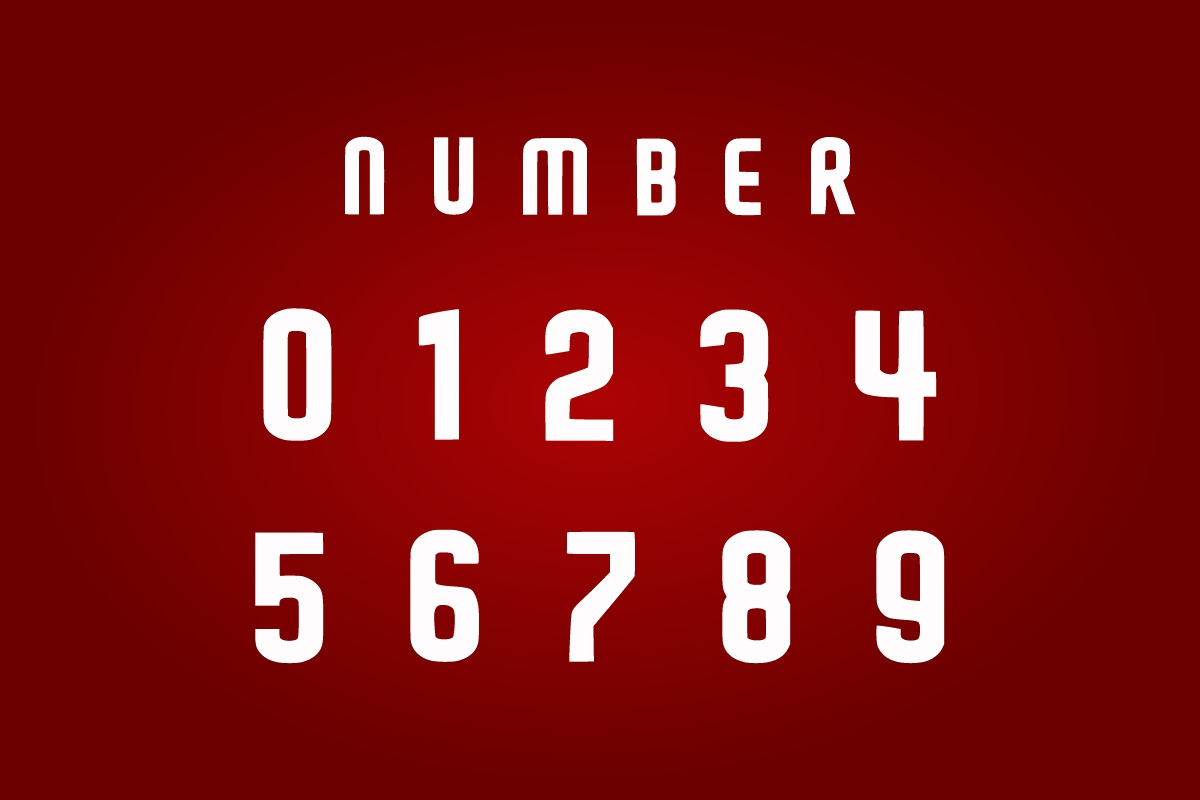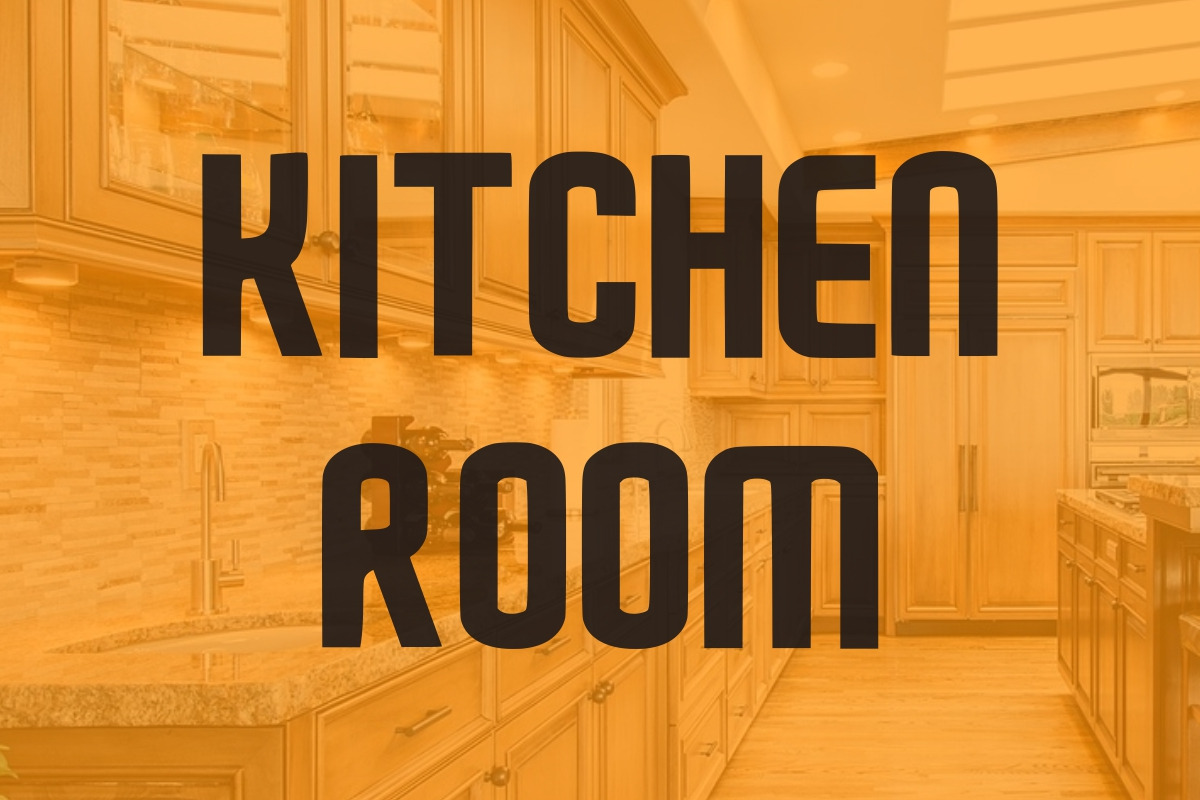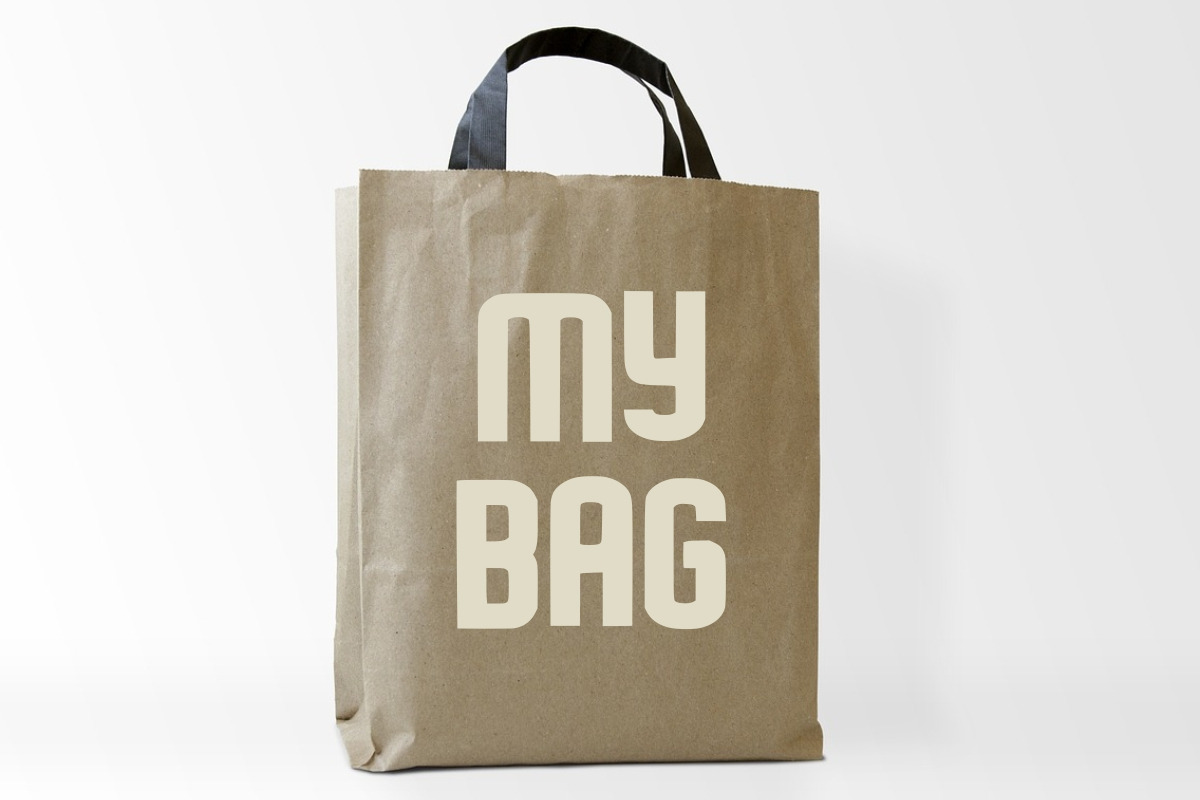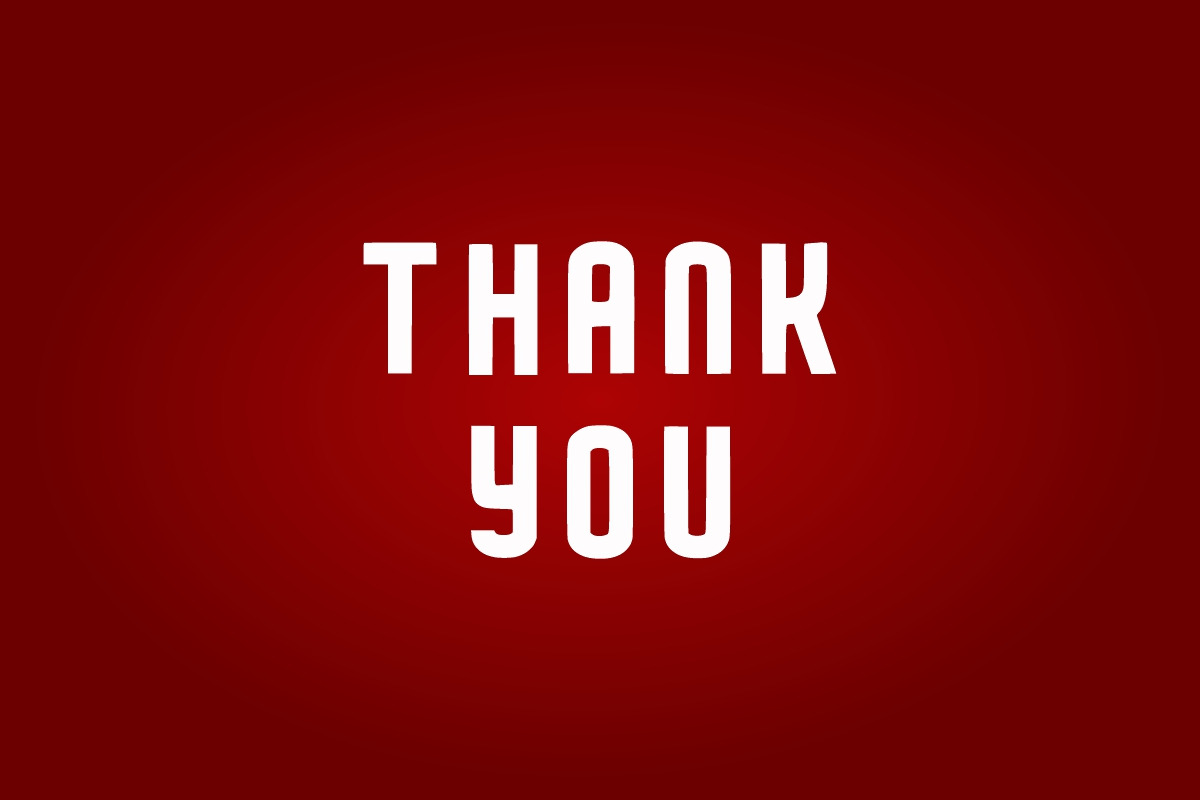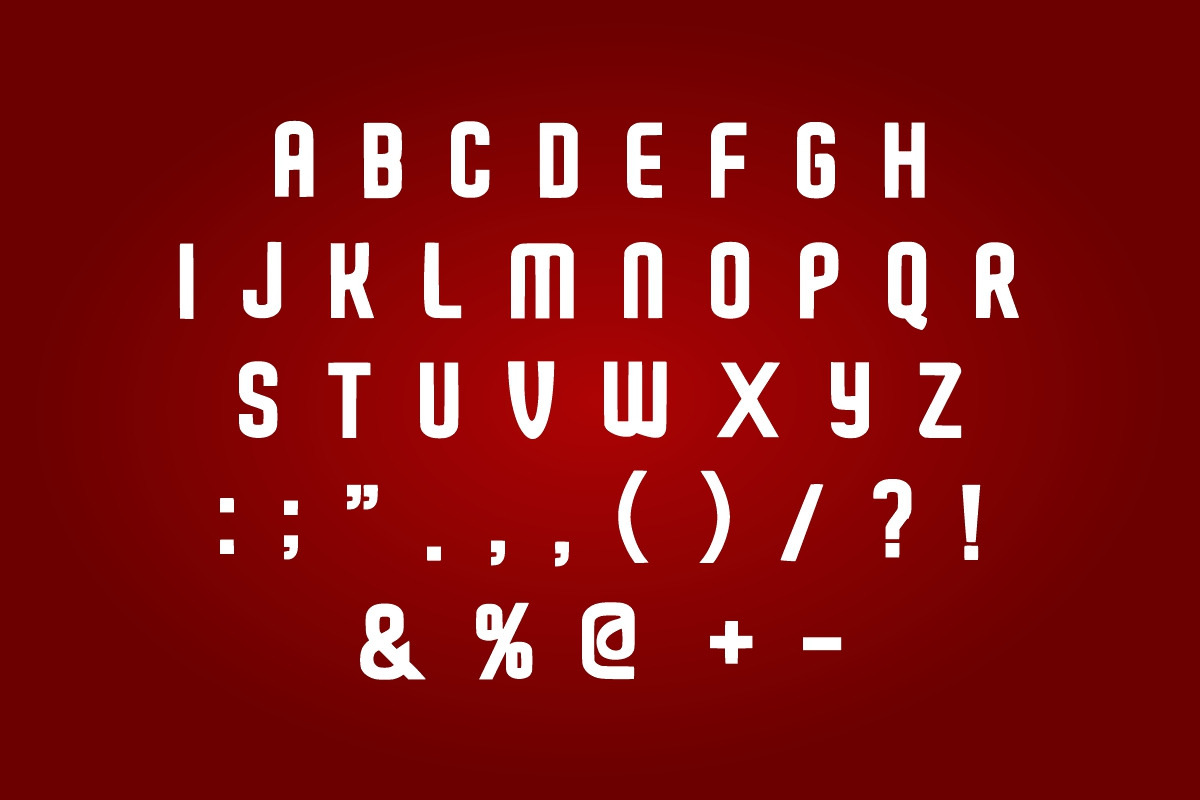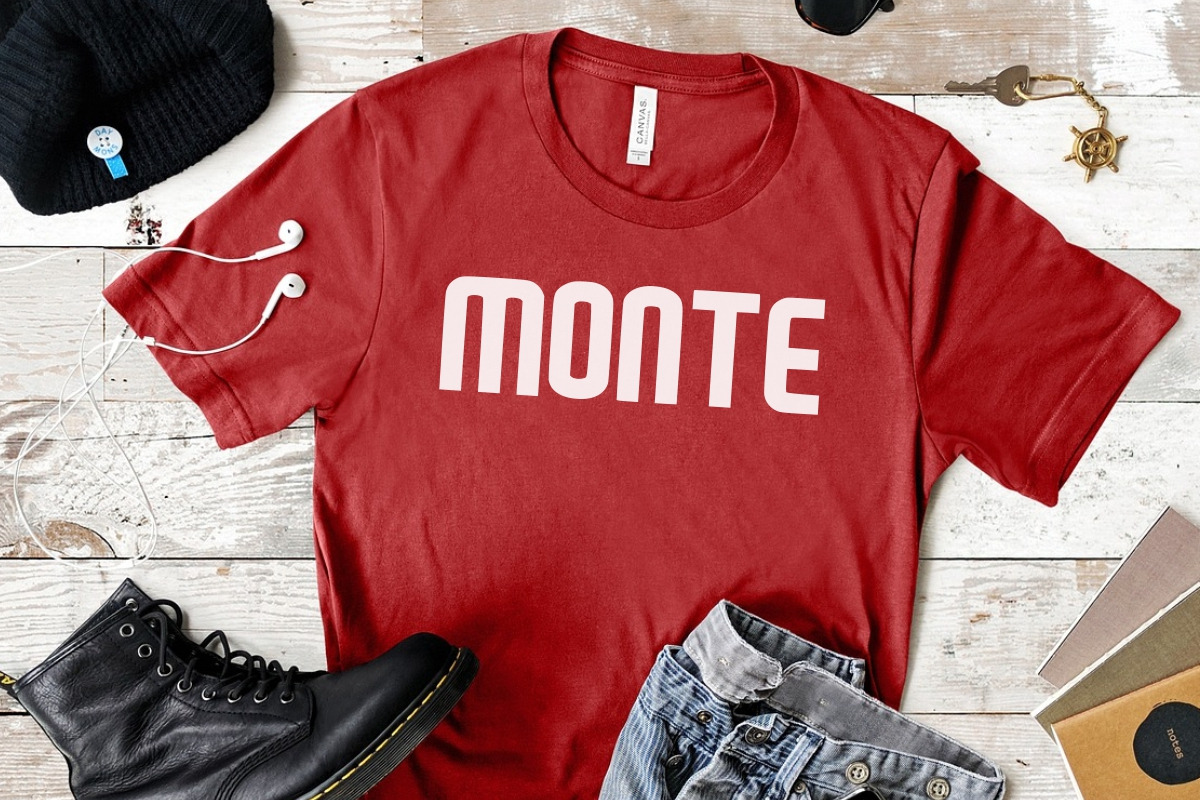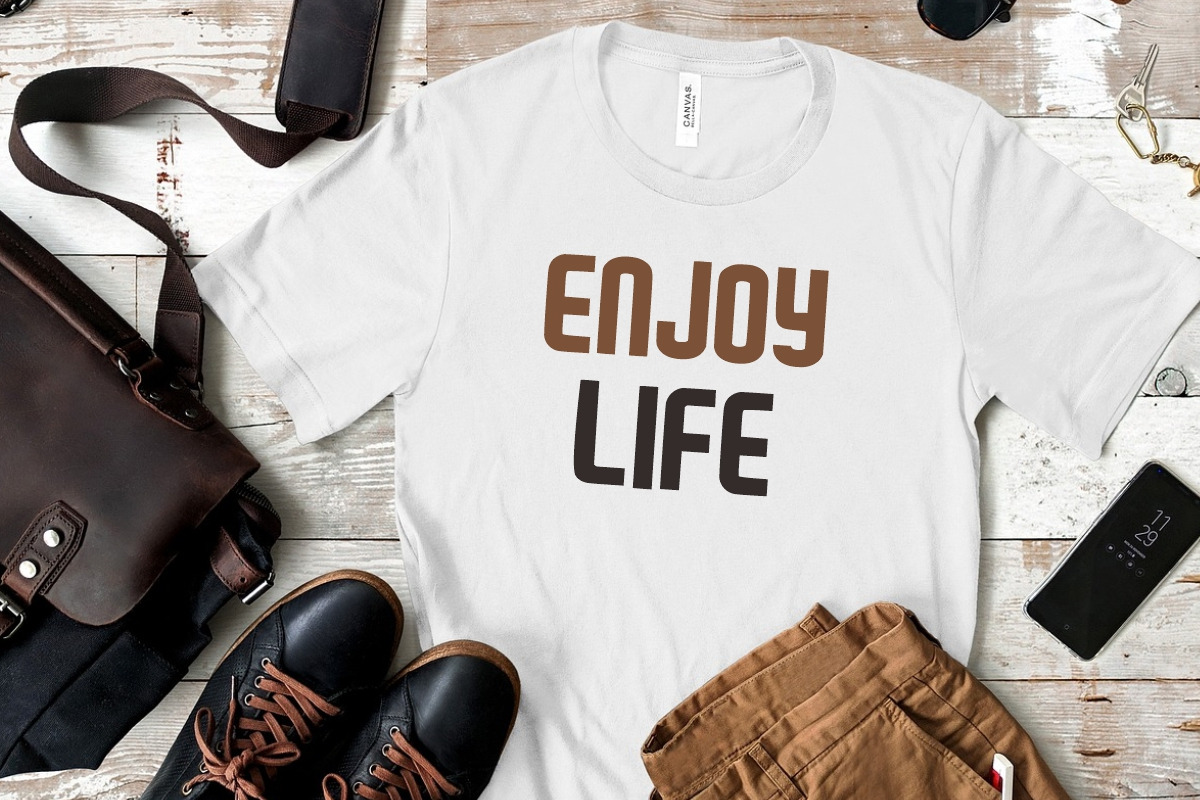
SAUSAGE
Sausage is a bold and easy-to-read all-caps display font that exudes confidence and authority. Its versatile design is ideal for various design projects that require a strong visual impact, including digital design, presentations, greeting cards, crafts, and branding. Its clean lines and legibility make it a reliable choice.